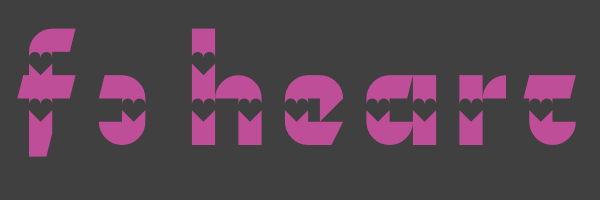
Nice slope to these sturdy looking glyphs, the heart shaped 'windows' work well here. I find the 't' a bit hard to spot though, a pixel-line as an ascender above the crossbar would make it more easily/immediately legible as not being a 'c' for me.